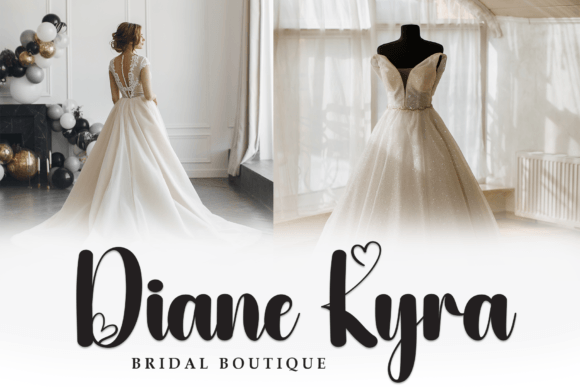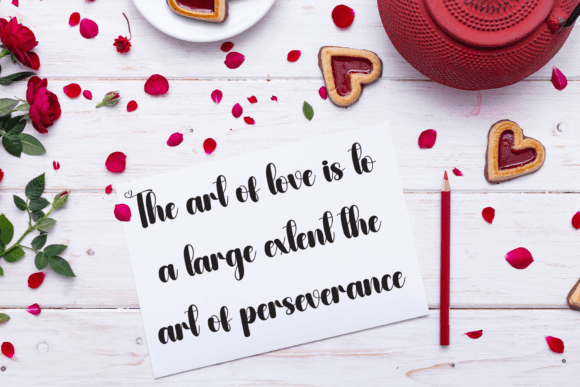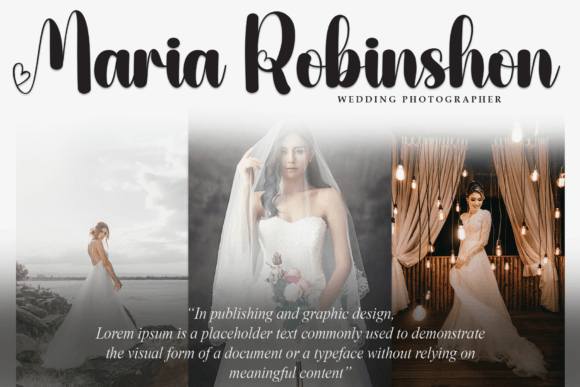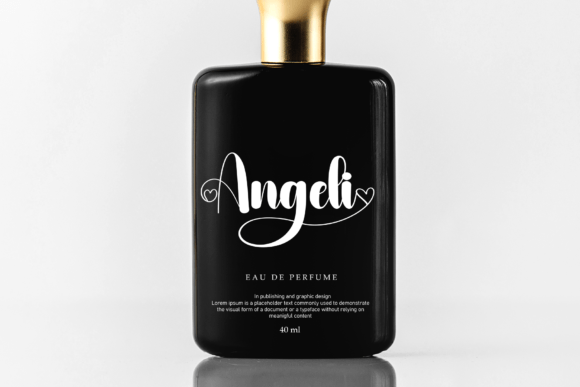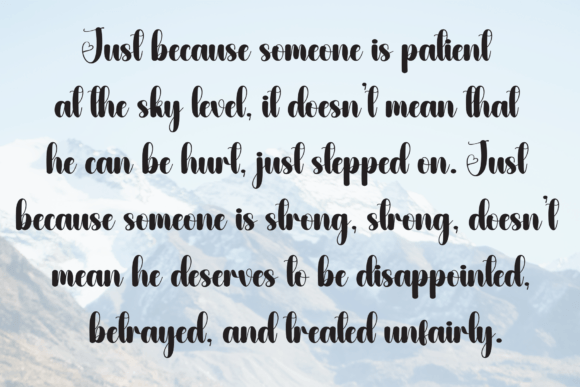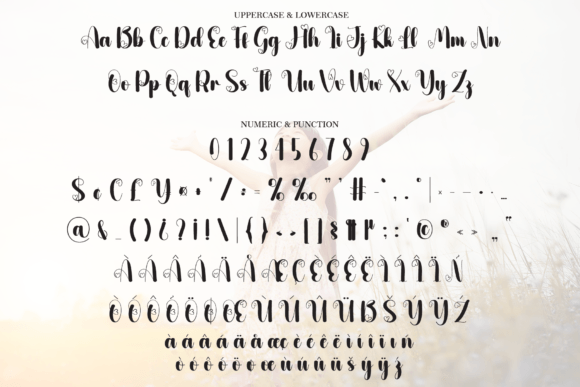
The Delight Font: A Sweet and Friendly Handwritten Treasure
I still remember the time I was working on a wedding invitation project, and I just couldn’t find the right font to capture the warmth and joy of the occasion. My client wanted something that felt personal, yet elegant; playful, yet sophisticated. That’s when I stumbled upon the Delight font, and it instantly became my go-to choice. In this article, I’ll share my experience with Delight, its features, and how to make the most of it in your designs.
An Honest Review of Delight Font
What I Love About Delight Font
- ✨ Sweet and Friendly Vibe: Delight exudes a warm, friendly feel that’s perfect for projects that require a personal touch.
- ✅ Cute and Fun: This font is ideal for designs that need a playful twist, such as children’s party invitations or social media graphics.
- 💕 Perfect for Wedding and Event Designs: Delight’s elegant, yet informal style makes it a great choice for wedding invitations, baby shower cards, and other special occasion designs.
While Delight is an amazing font, there are a few things to keep in mind:
- 🤔 Limited Use in Formal Designs: Delight’s playful nature might not make it the best fit for formal or corporate designs, such as business reports or financial documents.
- ⚠️ Glyph Limitations: While Delight has a range of glyphs and OpenType features, it might not have every special character or symbol you need.
The Story Behind Delight Font
Delight was designed by a talented typographer who wanted to create a font that captured the warmth and joy of handwritten writing. Inspired by classic script fonts and modern calligraphy, Delight is a unique blend of traditional and contemporary styles.
Q: Is Delight Font suitable for body text?
A: While Delight is a beautiful font, it’s best suited for headlines, titles, and short paragraphs. For body text, you may want to choose a font with better readability.